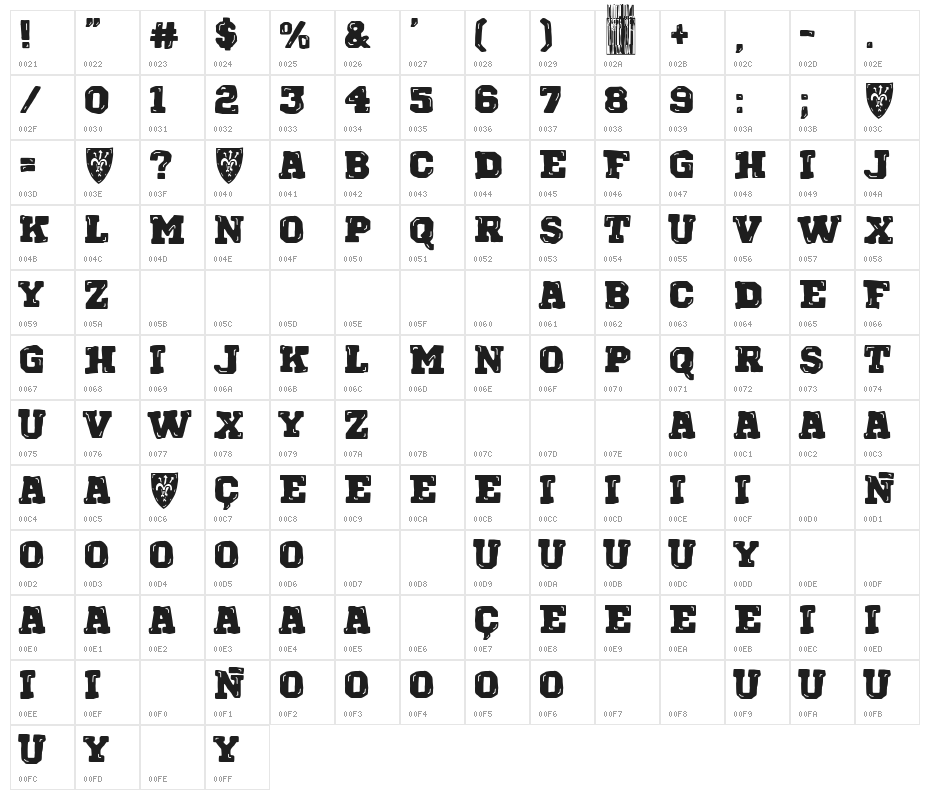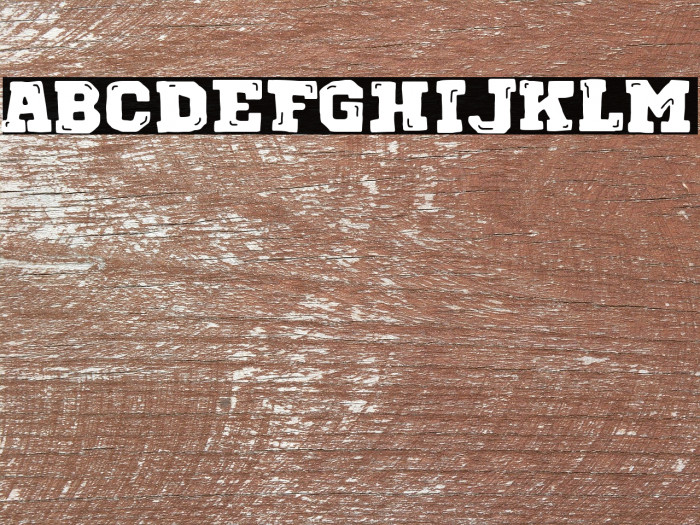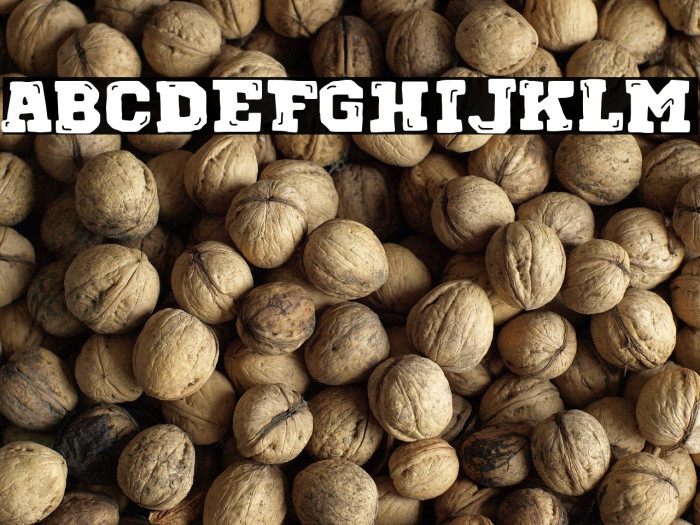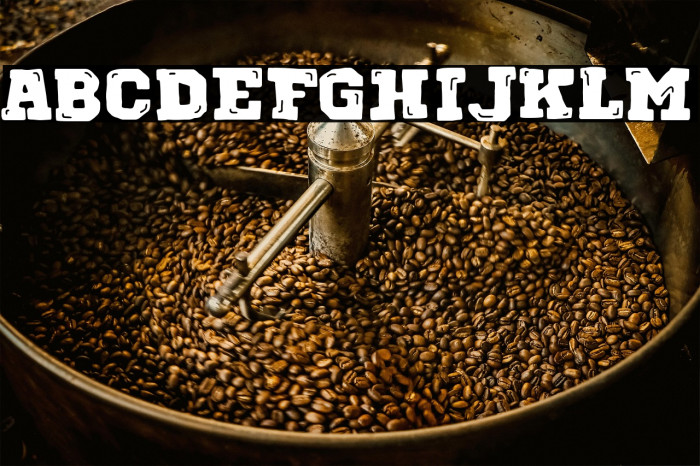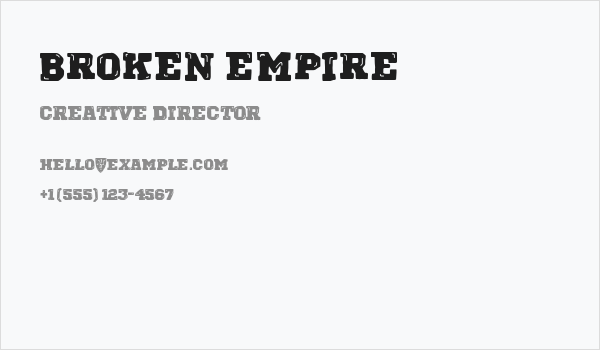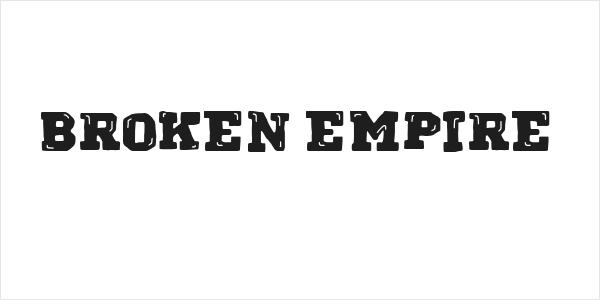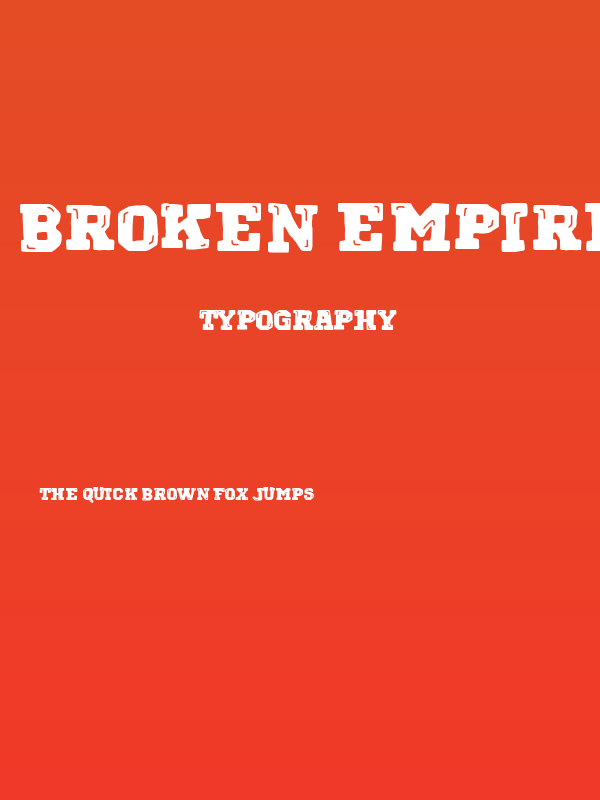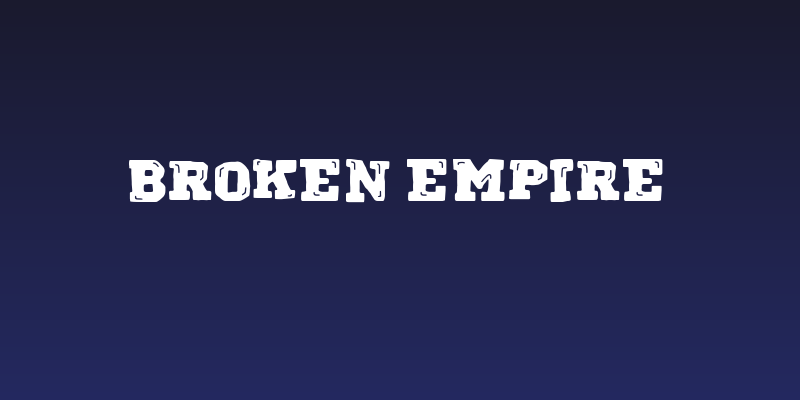
Broken Empire Font
Broken Empire Description
This font features a rugged, distressed style that gives it a bold and impactful appearance. Each character is designed with a rough, textured edge, creating a sense of age and wear. The uppercase and lowercase letters maintain a consistent weight, contributing to a cohesive look across the alphabet. The numbers and special characters follow the same design principles, ensuring uniformity. This font's unique style makes it stand out, ideal for projects that require a strong, vintage, or rebellious aesthetic.
| Proposed Projects | Ideal for posters, album covers, branding for edgy or vintage-themed products, and any design requiring a bold statement. |